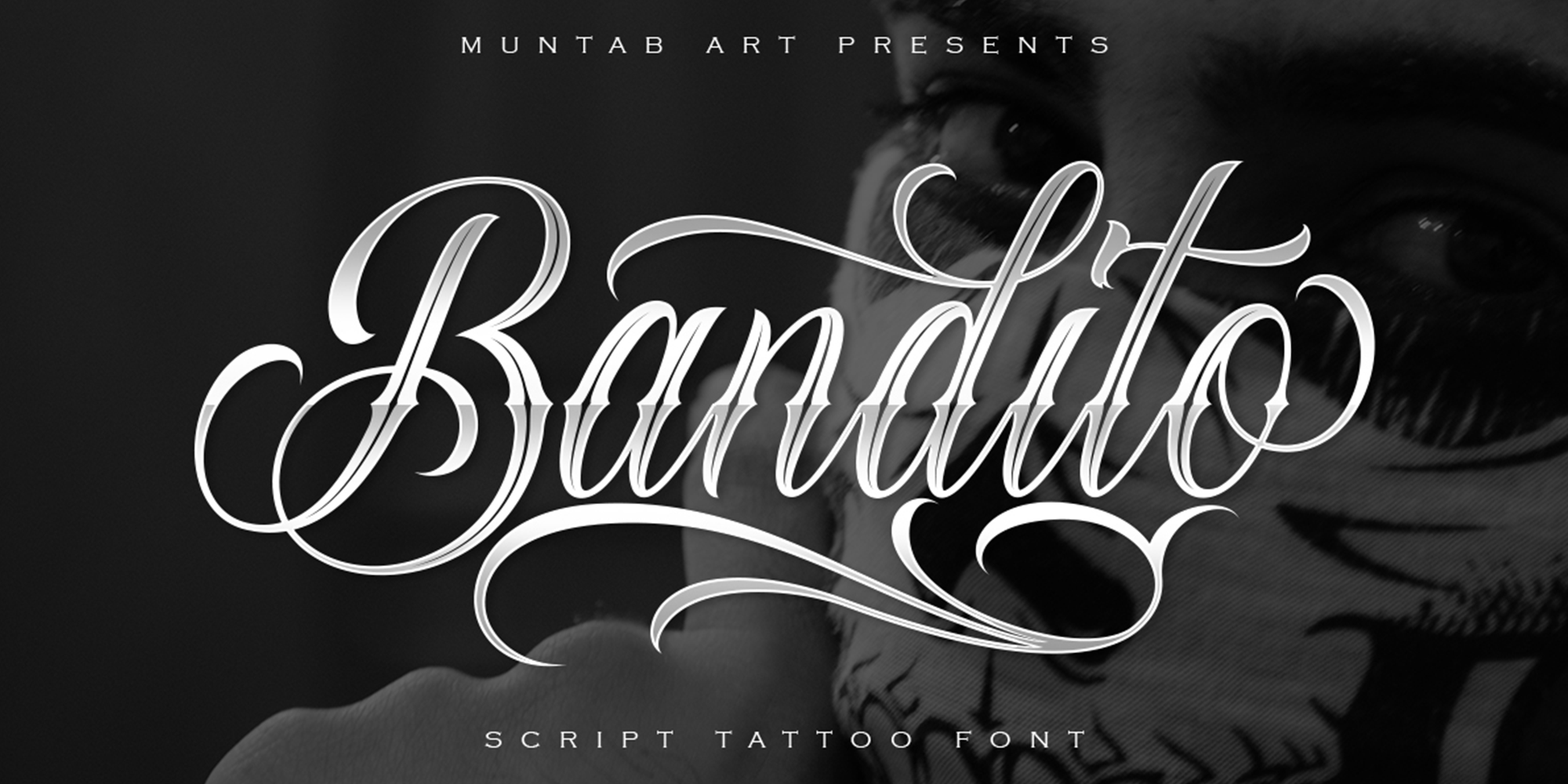
Bandito Script Font is perfect for Mexican restaurant branding, Wild West entertainment venues, southwestern cultural event promotions, mariachi band merchandise, desert adventure tour materials, authentic cantina signage, western-themed movie titles, frontier festival graphics, Latin American heritage celebrations, and spirited cultural lifestyle communications.
What makes Bandito Script Font so exciting is its extraordinary ability to capture the passionate spirit and romantic rebellion of legendary banditos through dramatically flowing letterforms that seem written with the same bold flourish that marked the signatures of freedom fighters who rode across desert landscapes defending honor and justice with unwavering courage. This font embodies the essence of southwestern adventure and Latin American passion, featuring dramatically scripted characters that appear penned by skilled calligraphers who understood that every letter must carry the fire of revolution and the elegance of cultural pride. The boldly expressive letter shapes create an atmosphere of romantic heroism and cultural authenticity, making every word feel like it carries the legendary spirit of those who chose freedom over oppression and wrote their names across history with the same passionate intensity that defines the greatest love stories and adventures.
The Bandito Script Font family includes Light, Regular, Bold, Flourished, and Shadow variations, along with southwestern symbols and cultural decorative elements. Each style maintains the font's distinctive passionate character while offering versatility for different cultural applications, from gentle storytelling text to dramatic celebration headlines that announce the arrival of authentic southwestern culture and Latin American heritage.
This spirited typeface brings authentic southwestern adventure aesthetics to contemporary design projects. The Bandito Script Font Free Download provides designers with an invaluable resource for creating memorable brand identities that communicate passion, cultural pride, and adventurous authenticity. Whether you're developing Mexican cuisine branding, designing cultural celebration materials, or creating southwestern lifestyle communications, this font delivers unmatched passion and cultural credibility.
The masterfully crafted letterforms in Bandito Script Font feature flowing curves and dramatic flourishes that mirror the graceful movements of skilled horsemen and the passionate expression of cultural traditions that have been passed down through generations of proud families. Each character has been designed to maintain excellent readability while expressing the fierce independence and romantic courage that define the legendary figures who fought for justice and freedom across the American Southwest. The font's distinctive personality makes it ideal for applications requiring genuine cultural authority and southwestern adventure appeal.
Cultural entertainment professionals appreciate how Bandito Script Font effortlessly communicates passion, cultural authenticity, and adventurous spirit while appealing to audiences seeking genuine southwestern experiences that honor both the legendary figures and rich traditions that define Latin American and southwestern American culture. The comprehensive character set includes cultural symbols, southwestern decorations, adventure elements, and extensive international language support, ensuring global compatibility while preserving its distinctive bandito identity. This makes it an invaluable resource for restaurants, entertainment venues, cultural organizations, and any establishment seeking typography that embodies the timeless appeal of southwestern adventure, the passionate spirit of Latin American culture, and the kind of romantic heroism that transforms ordinary stories into legendary tales of courage, honor, and the eternal human struggle for freedom and justice in the vast desert landscapes where heroes are born and legends live forever.